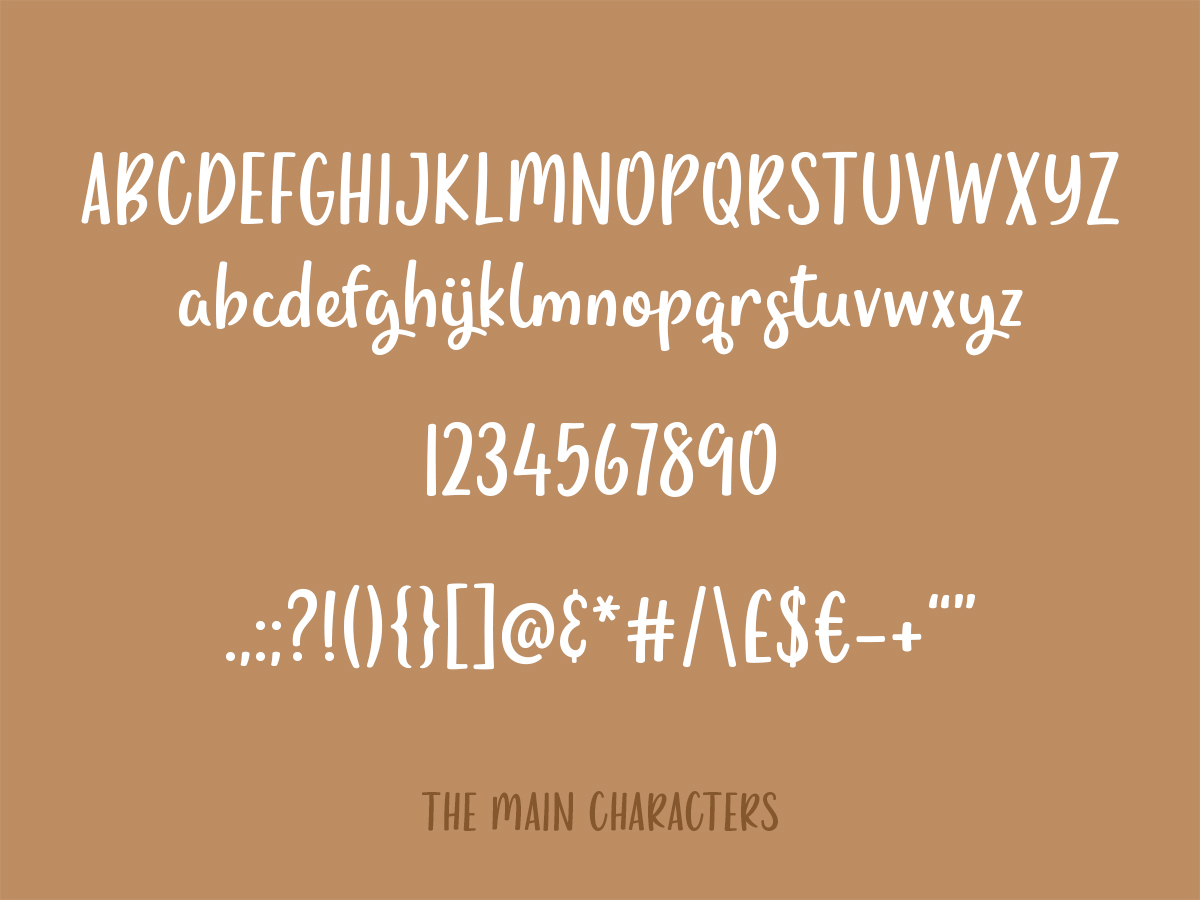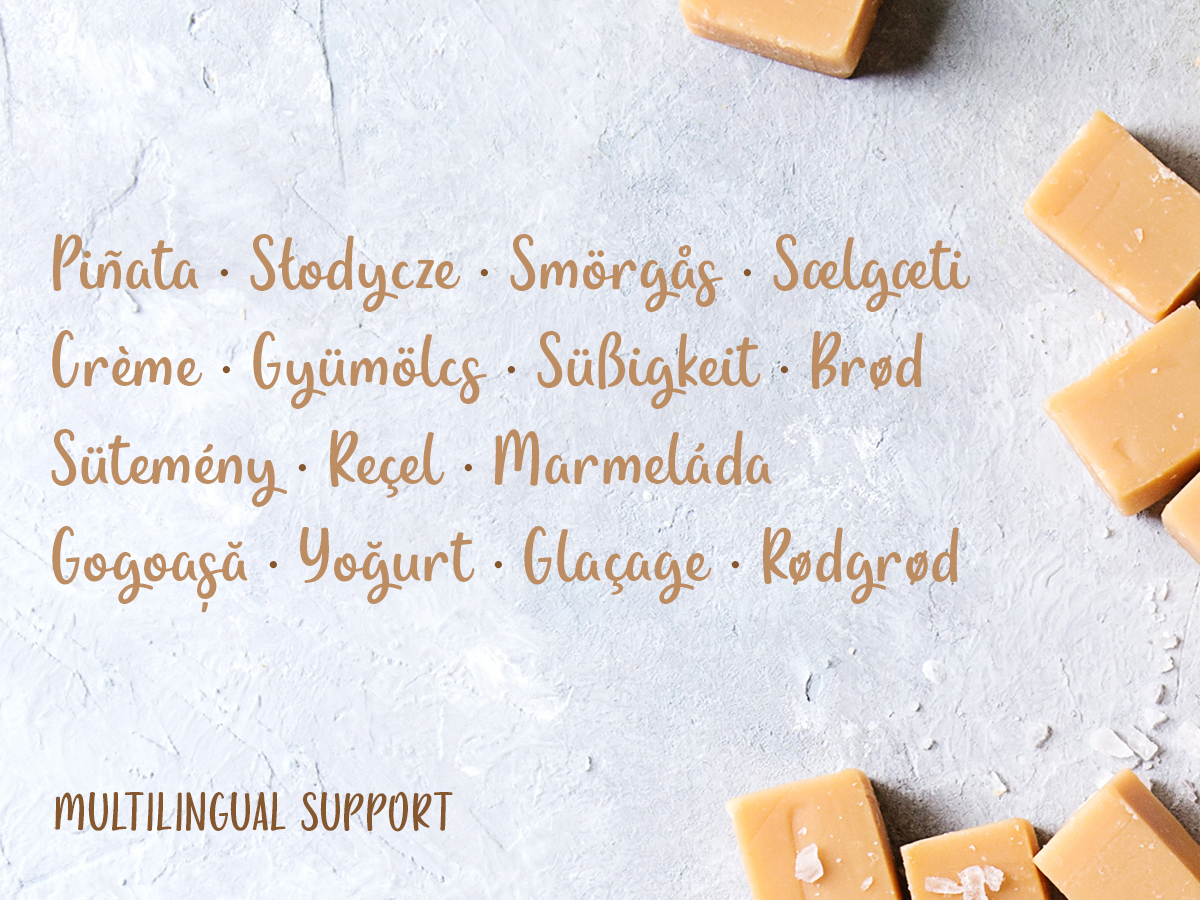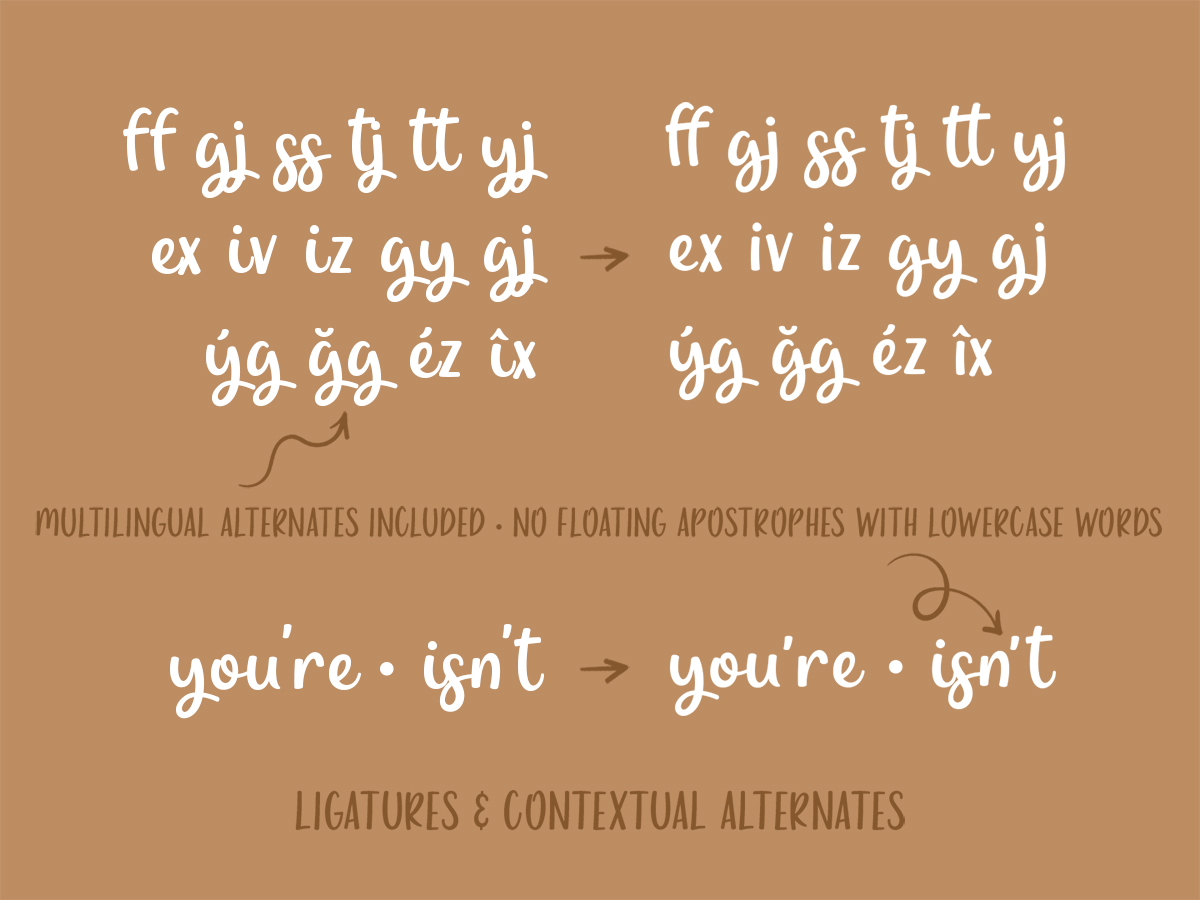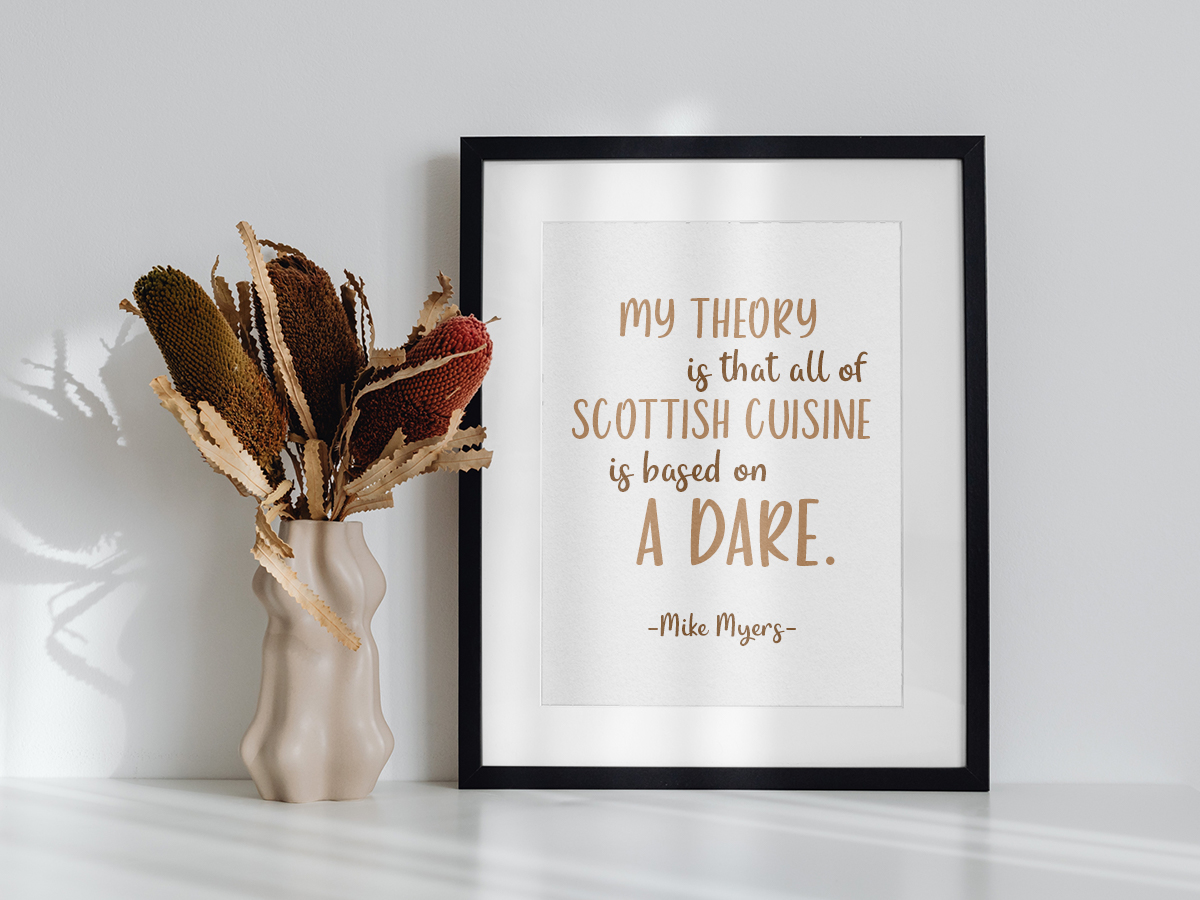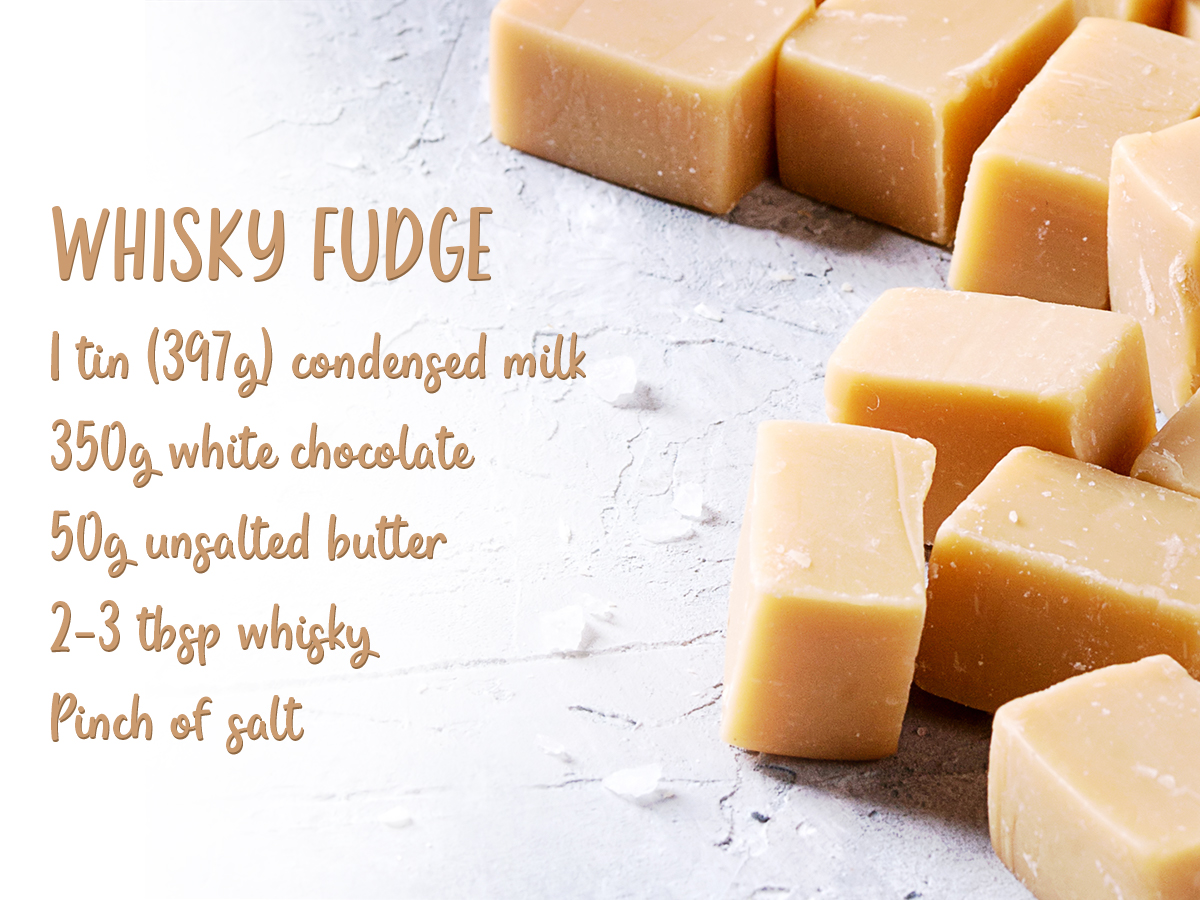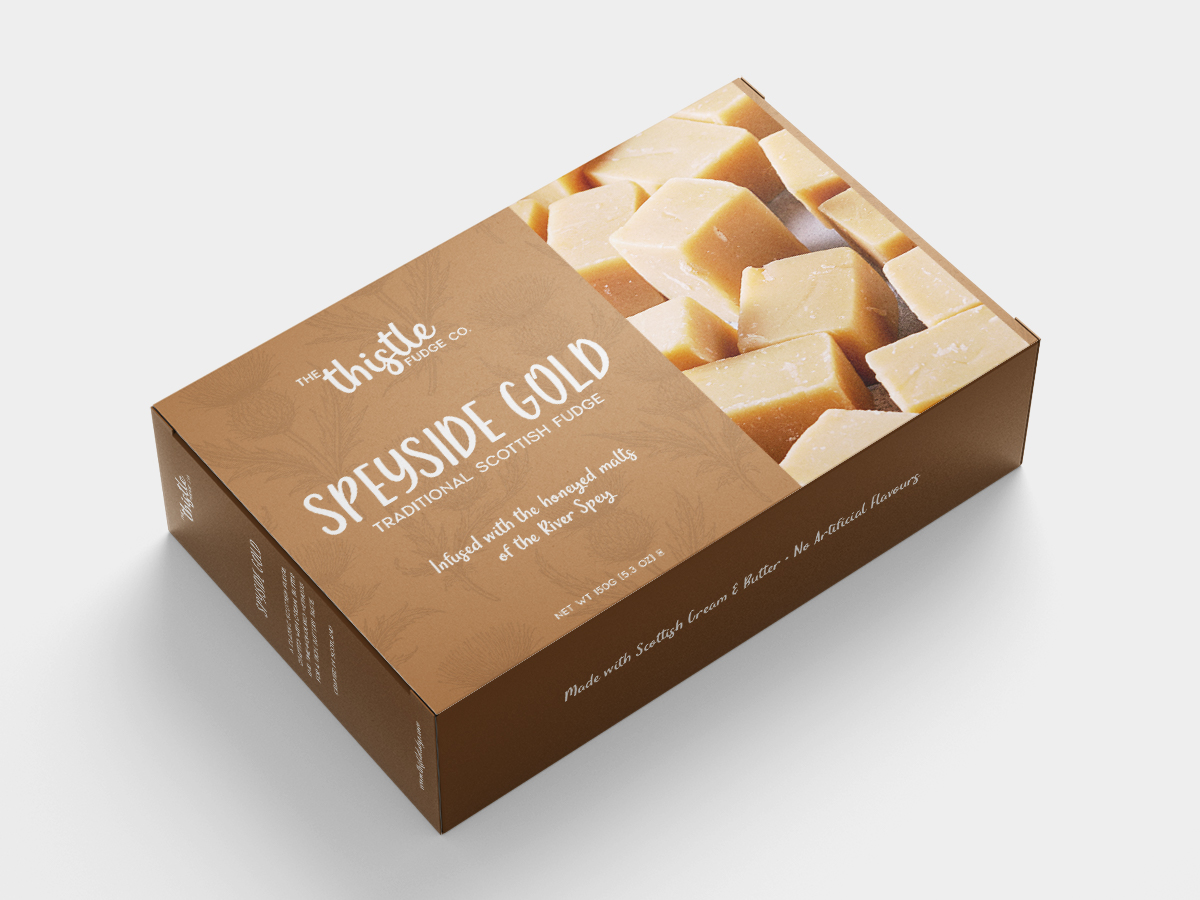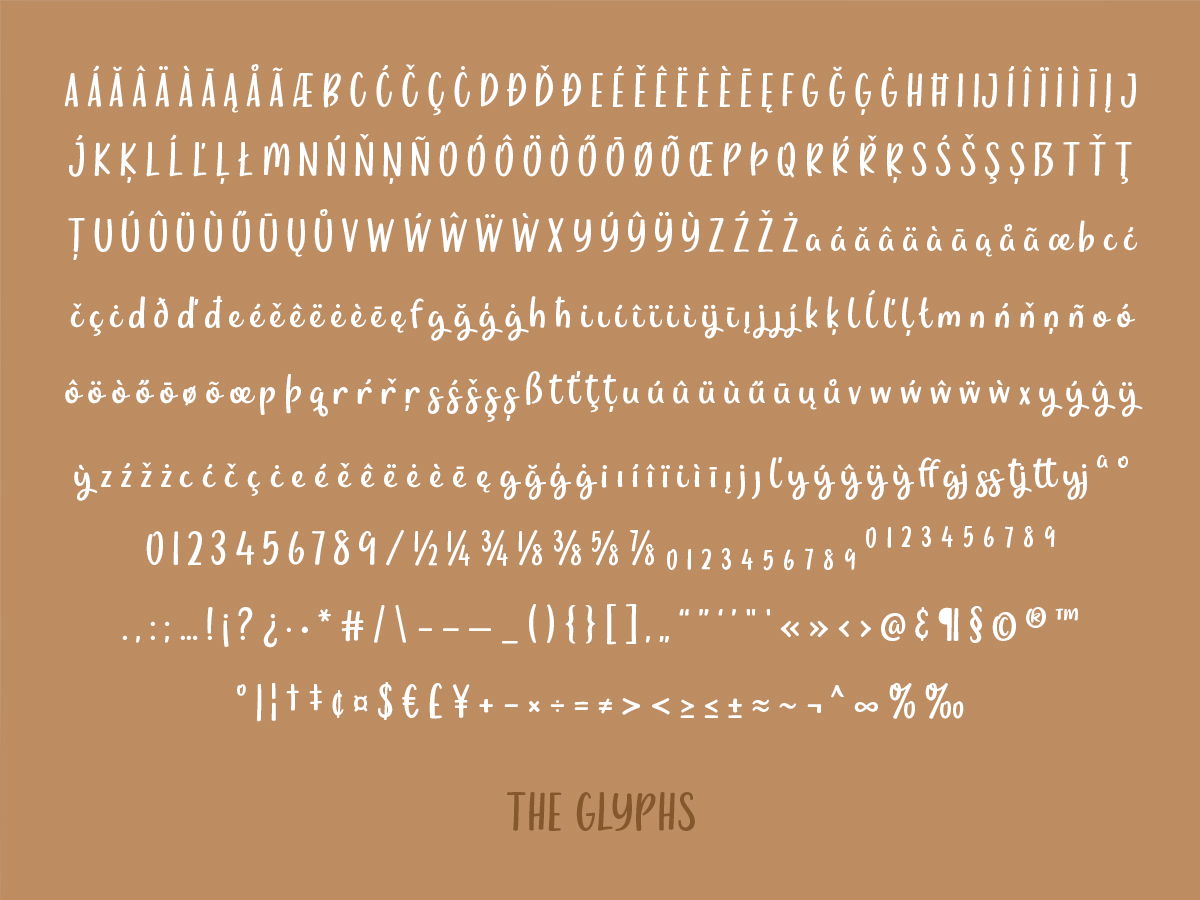
Whisky Fudge
Indulge your designs with Whisky Fudge, a rich and playful brush script inspired by the creamy sweetness of fudge.
With its natural flow and relaxed, handwritten feel, it’s perfect for anything that needs a touch of warmth – from packaging and logos to social posts and branding.
Sweet, bold, and hard to ignore – Whisky Fudge adds instant character to any design.
• Uppercase & lowercase characters
• Numerals, punctuation and symbols
• Ligatures & contextual alternates
• Multilingual support for European languages